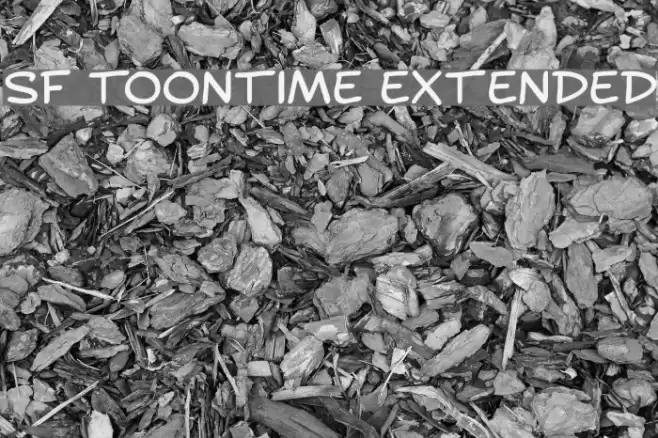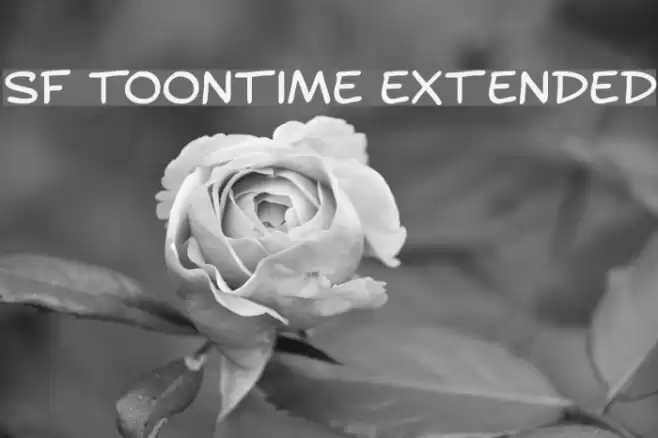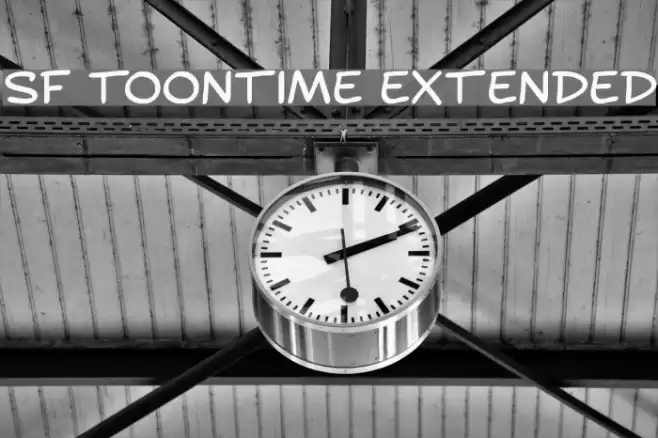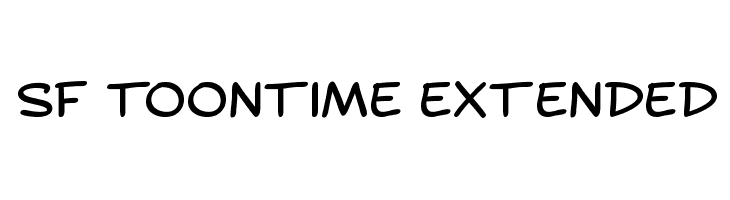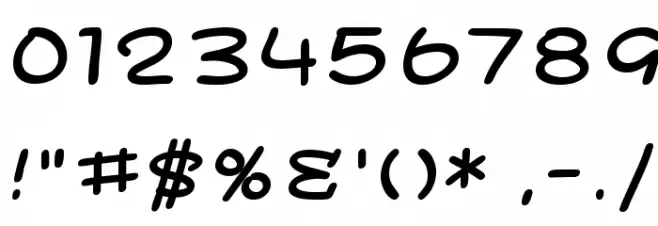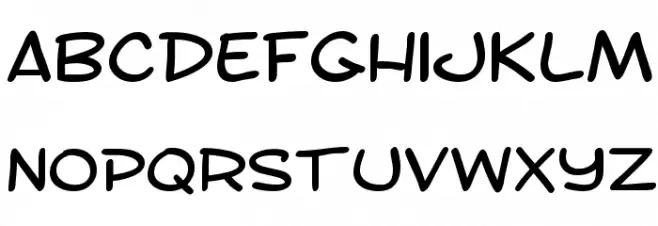
SF Toontime Extended Font
SF Toontime Extended Description
This playful and whimsical font features rounded, cartoon-like characters that convey a sense of fun and creativity. The letters are bold and slightly irregular, giving them a hand-drawn appearance. The strokes are consistent in width, providing a uniform look while maintaining a casual, informal style. The font includes both uppercase and lowercase letters, numerals, and a variety of special characters, making it versatile for different uses. Its unique style is reminiscent of comic book lettering, making it ideal for projects that require a lighthearted and approachable tone.
A playful, cartoon-like font with rounded, hand-drawn characters from Comic fonts.
- Proposed Projects: Ideal for children's books, comic strips, playful branding, and casual invitations.
- Overall Style: Playful, Whimsical